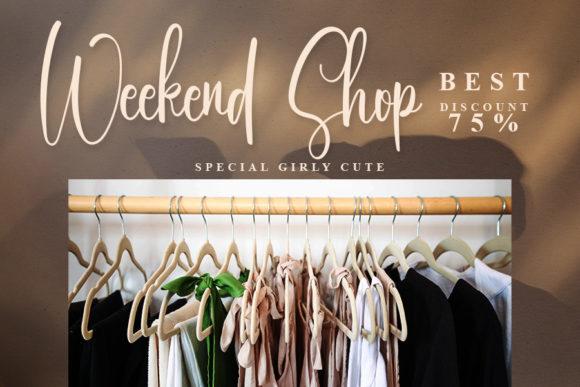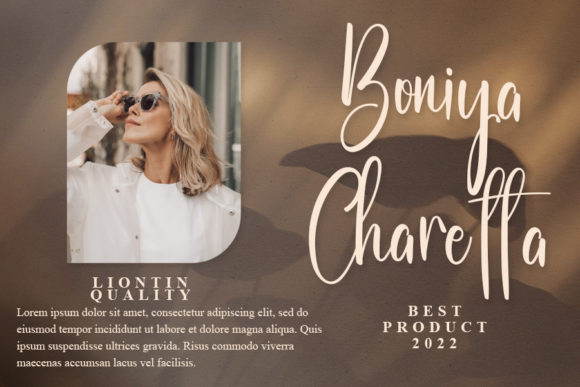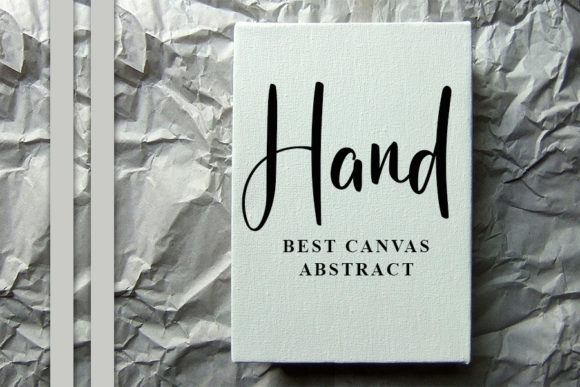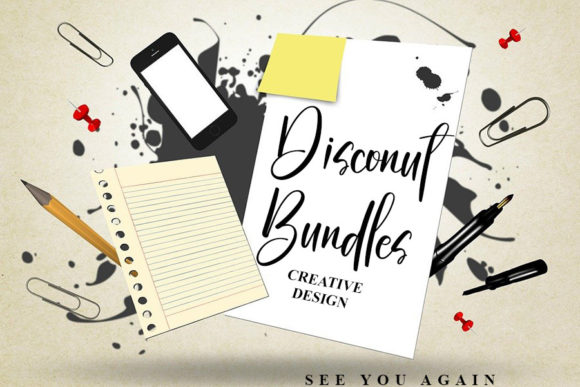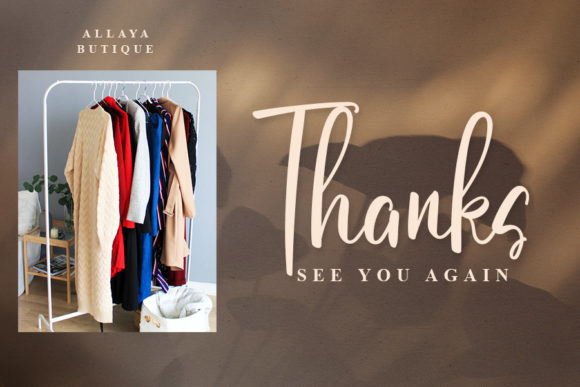
The Elegance of Endinglove Font: A Designer’s New Best Friend
I’ll never forget the time I was working on a project for a high-end client, and I just couldn’t seem to find the right font. The design was elegant, sophisticated, and modern, but no matter what I tried, it just didn’t feel right. That was until I stumbled upon Endinglove Font. This beautiful script font has been a game-changer for me, and I’m excited to share it with you.
Endinglove Font is an elegant script font that exudes a contemporary atmosphere and impeccable form, inspired by timeless classic calligraphy. Here’s what I love about it:
- ✨ Balanced and varied: The font is not too thin and not too thick, making it perfect for a wide range of design projects.
- ✅ Elegant and sophisticated: Endinglove Font has a classic, timeless feel that’s perfect for high-end designs.
- 💫 OpenType features: The font comes with a range of OpenType features, including glyphs and stylistic alternates, which give you plenty of creative options.
And, like any font, it’s not perfect. Here are a few quirks to keep in mind:
- 🤔 Limited multilingual support: Endinglove Font is designed primarily for English and other Western languages, so if you need to support a wide range of languages, you may want to look elsewhere.
- ⚠️ Not ideal for body text: While Endinglove Font is beautiful, it’s a script font and can be a bit challenging to read in large blocks. It’s best used for headings, titles, and other display text.
The Story Behind Endinglove Font
According to the designer, Endinglove Font was inspired by the timeless beauty of classic calligraphy. The goal was to create a font that’s both elegant and modern, with a balanced and varied feel. The result is a font that’s perfect for designers, crafters, and creative hobbyists who want to add a touch of sophistication to their projects.
| What is Endinglove Font? | Endinglove Font is an elegant script font with a contemporary atmosphere and impeccable form, inspired by timeless classic calligraphy. |
| What languages does Endinglove Font support? | Endinglove Font is designed primarily for English and other Western languages. |
| Is Endinglove Font suitable for body text? | No, Endinglove Font is a script font and is best used for headings, titles, and other display text. |